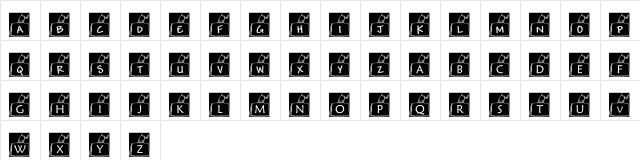
pf_bcase2 Regular
Design Context for pf_bcase2 Typeface
pf_bcase2 is a composed and adaptable typeface that performs quietly and consistently across a wide range of design contexts.
Pro Tip: Use pf_bcase2 in both headline and body roles to test its range before committing to a single application.